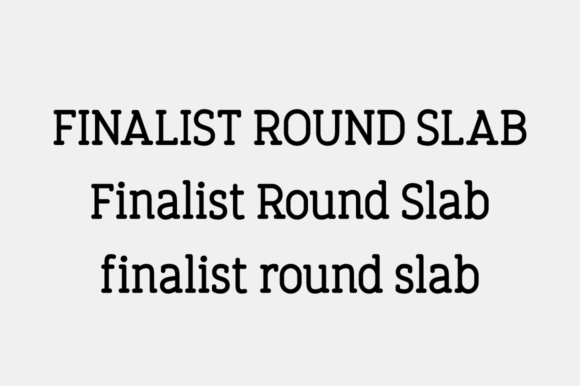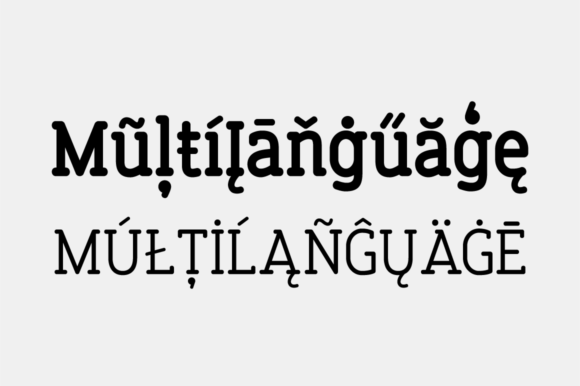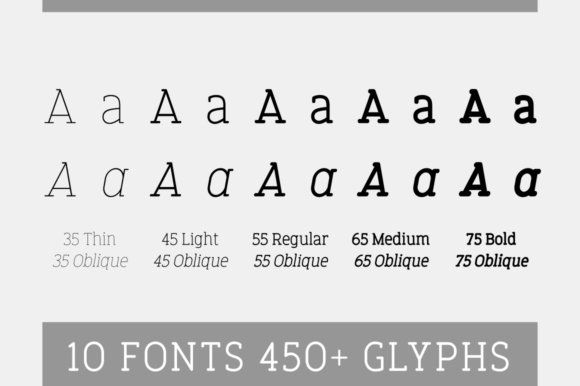
Finalist Round Slab Font
About the Finalist Round Slab Font
The Finalist Round Slab Font is here to transform your projects with its distinctive character and style. Finalist Round Slab is a minimal and neat slab serif font. It can easily be matched to an incredibly large set of projects, so add it to your creative ideas and notice how it makes them stand out!
Finalist Round Slab’s clean lines and minimal detailing make it ideal for headlines, short blocks of text in branding materials, and impactful signage. Its strong yet refined presence works well on packaging for premium products or in posters requiring a sense of authority. However, its slab serifs and relatively high x-height may make it less suitable for extended body copy or UI elements where high readability at smaller sizes is paramount.
This font exudes a modern, confident personality. It’s bold without being aggressive, lending itself to brands aiming for a sophisticated yet approachable image. Pair it with a clean sans-serif like Lato or Open Sans for a balanced contrast, or consider a complementary serif like Merriweather for a more traditional feel. For a touch of elegance, a script font like Great Vibes could be used sparingly for accents.
Avoid pairing it with overly decorative or playful fonts, as this might detract from its inherent strength and refined simplicity. The overall effect should be one of controlled elegance and quiet confidence.